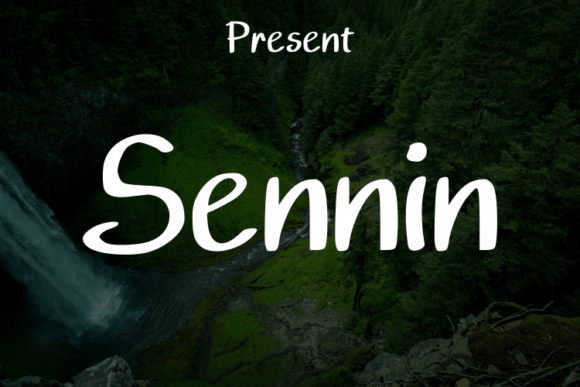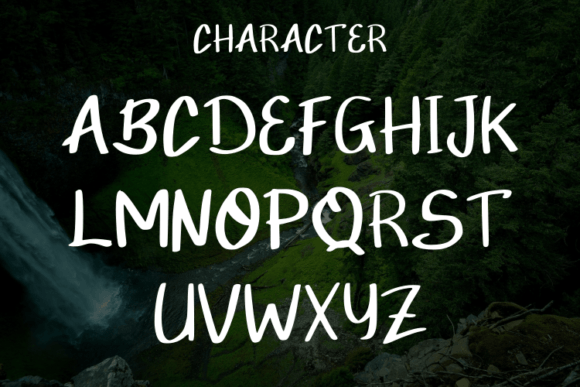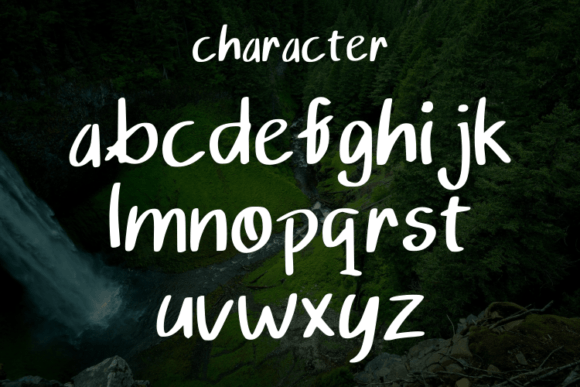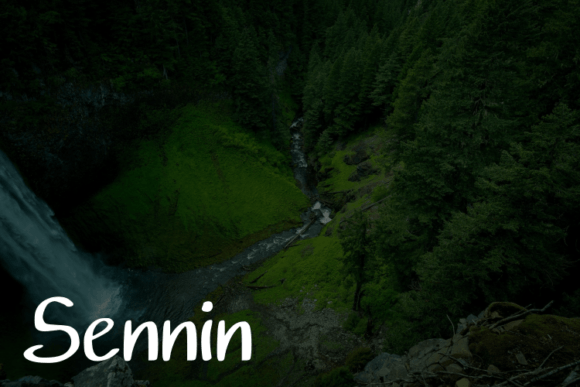
Sennin Font
About Sennin Font
Sennin is a script typeface characterized by its simple style and modern aesthetic. This versatile font is an ideal choice for a diverse range of design projects, lending itself seamlessly to the creation of elegant and luxurious elements. Whether you’re working on crafting logos, designing titles for books or movies, establishing a sophisticated identity for fashion brands, curating stylish magazines, enhancing clothing labels, creating unique fonts, or incorporating a touch of refinement into quotes, Sennin offers a sleek foundation.
The simplicity of Sennin contributes to a timeless quality, making it adaptable to various design contexts. Its modern appearance ensures that it can effortlessly integrate into contemporary design trends, allowing for a cohesive and polished look across different applications.
Sennin’s script style adds a touch of sophistication and personalized charm to your designs. Whether used for logos or titles, it introduces a unique and stylish element that enhances the overall visual appeal. The font’s modern look ensures that it remains relevant and visually impactful in today’s design landscape.
In summary, Sennin is more than just a script typeface; it’s a design asset that combines simplicity and modernity, creating an elegant and luxurious vibe. Its versatility makes it suitable for a wide array of creative projects, allowing you to infuse a touch of refinement into your design endeavors.